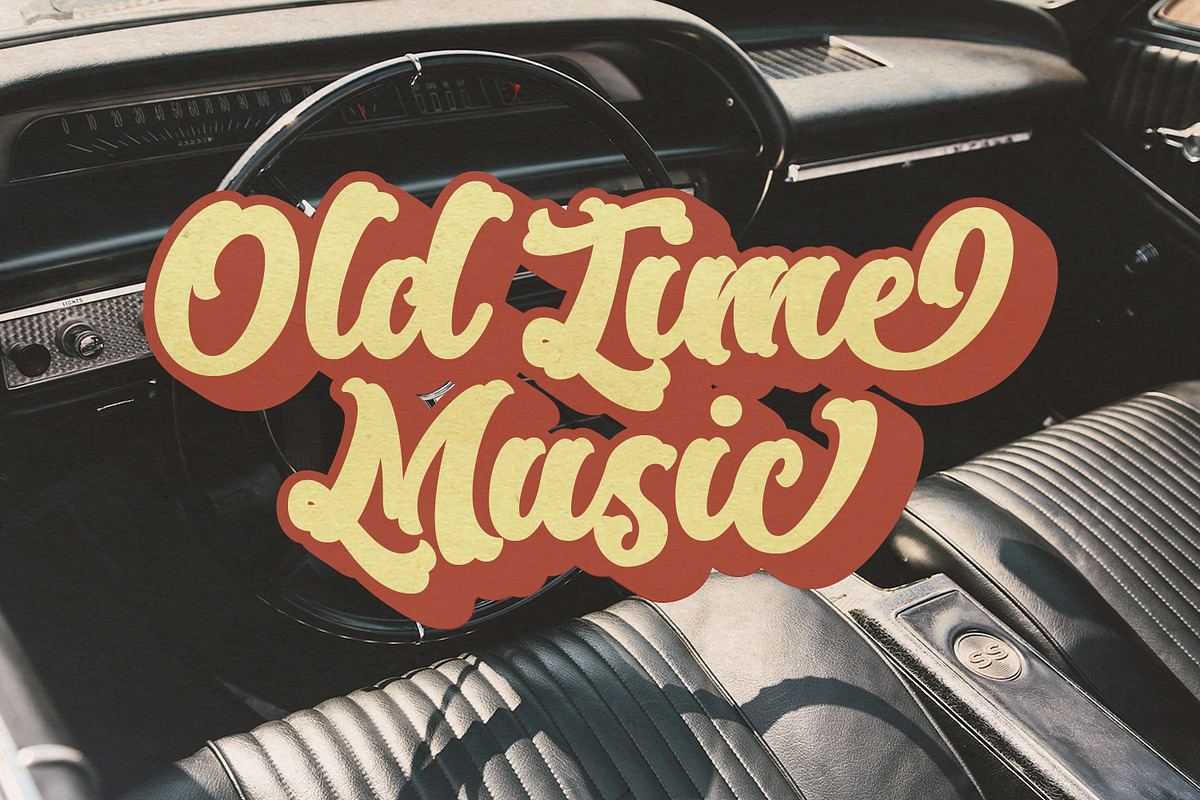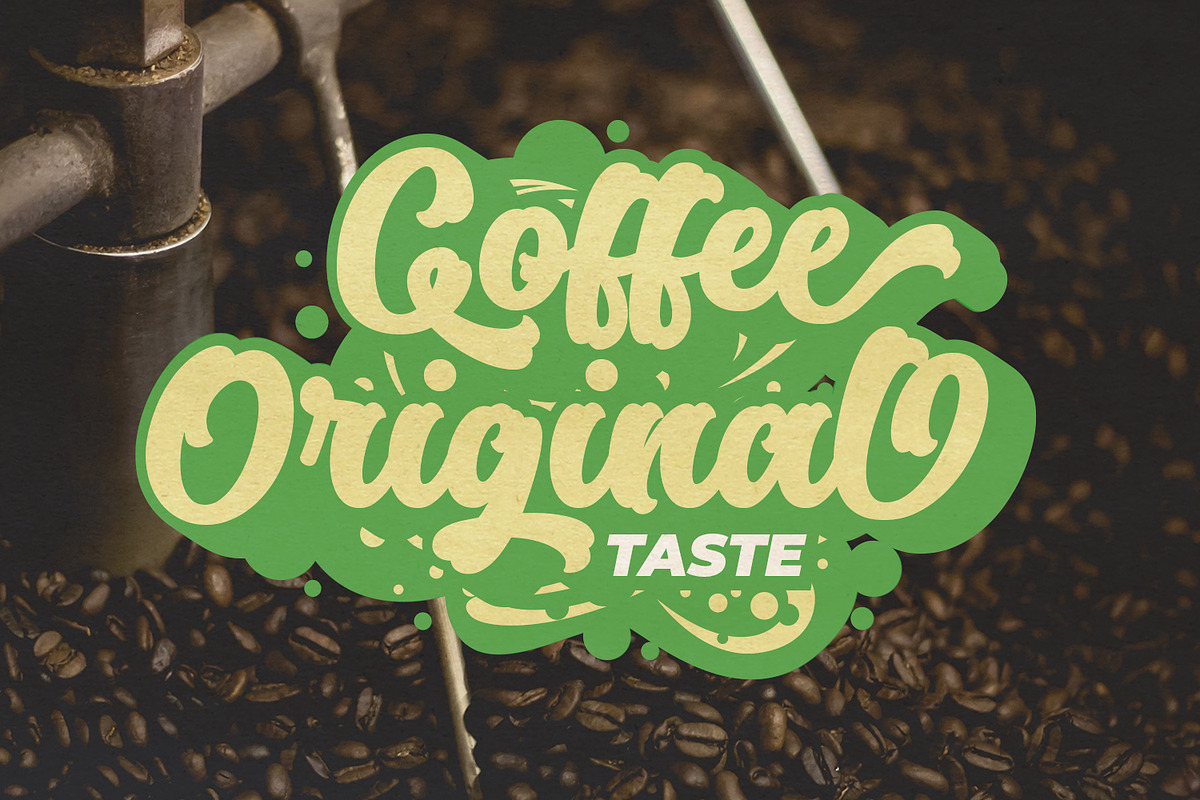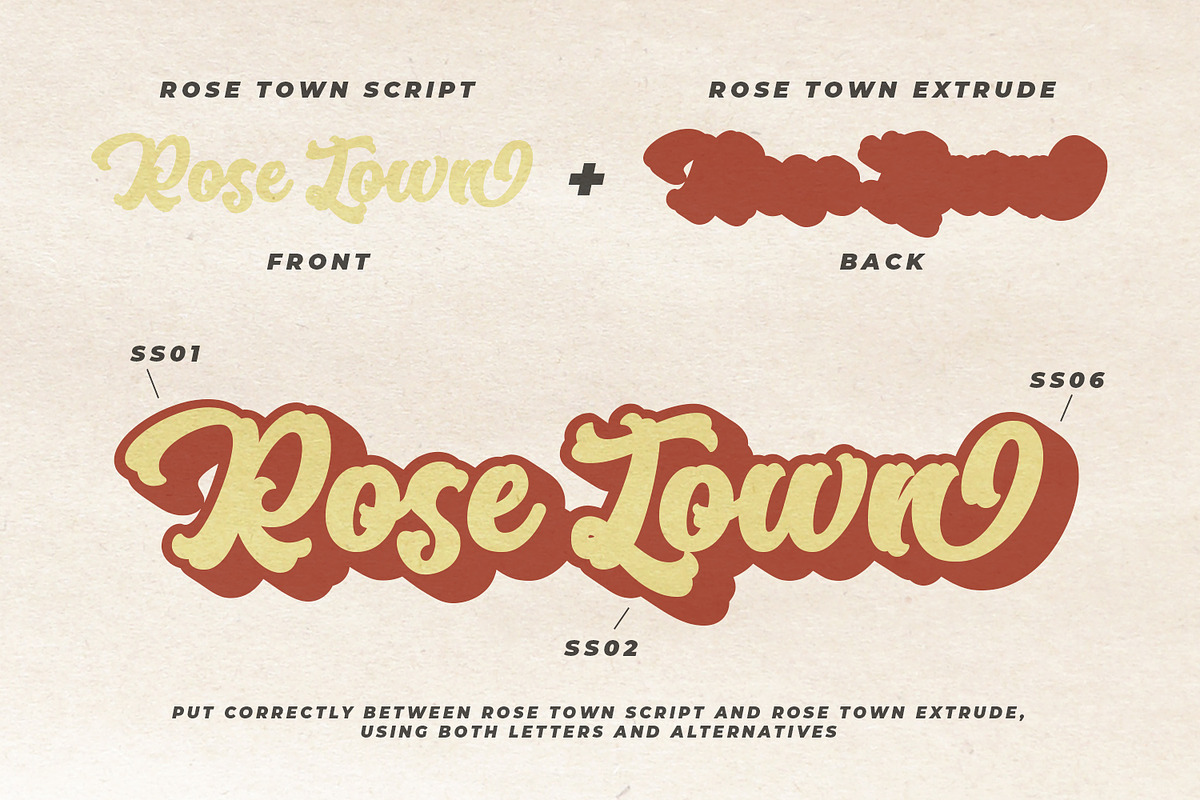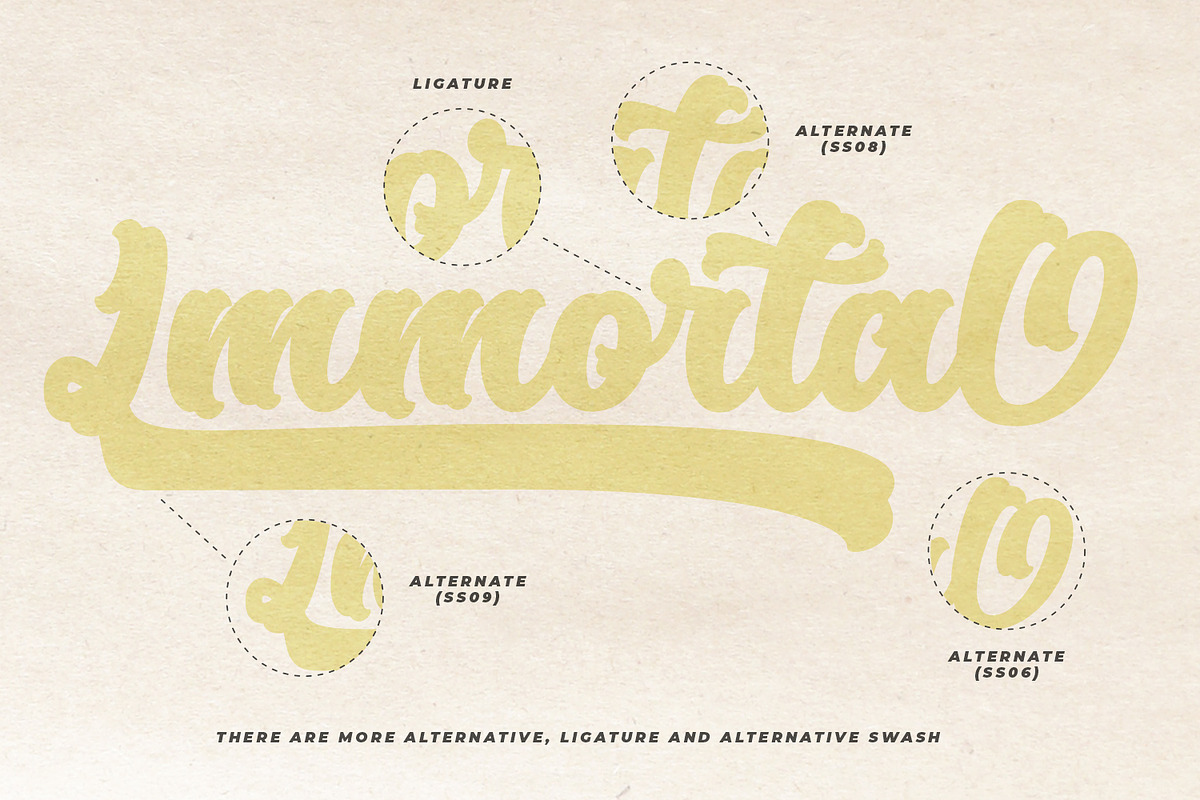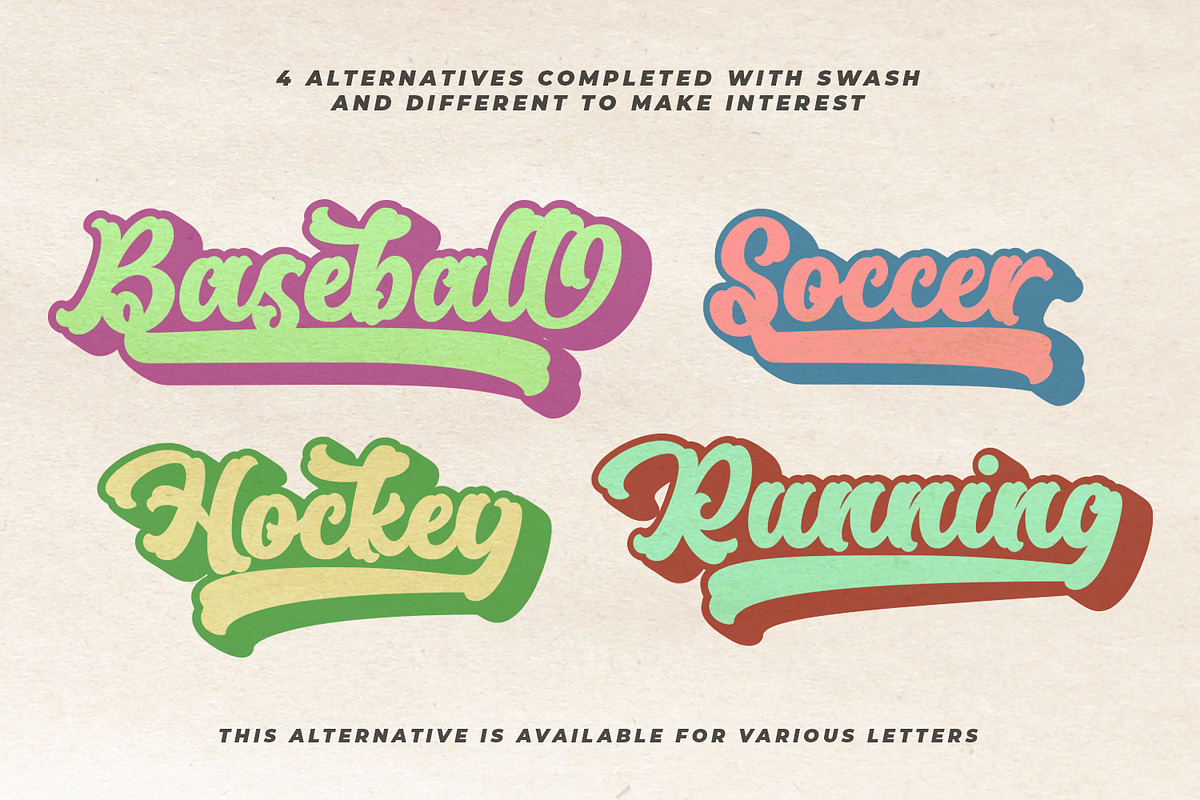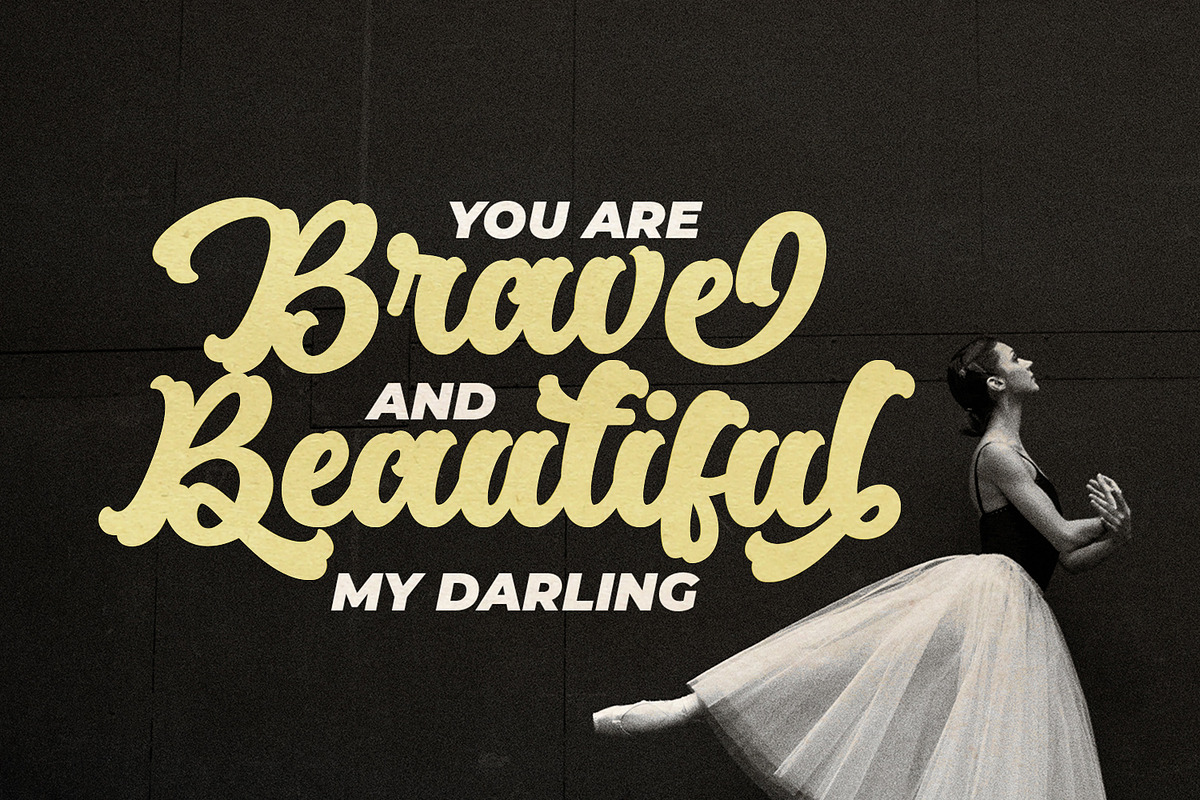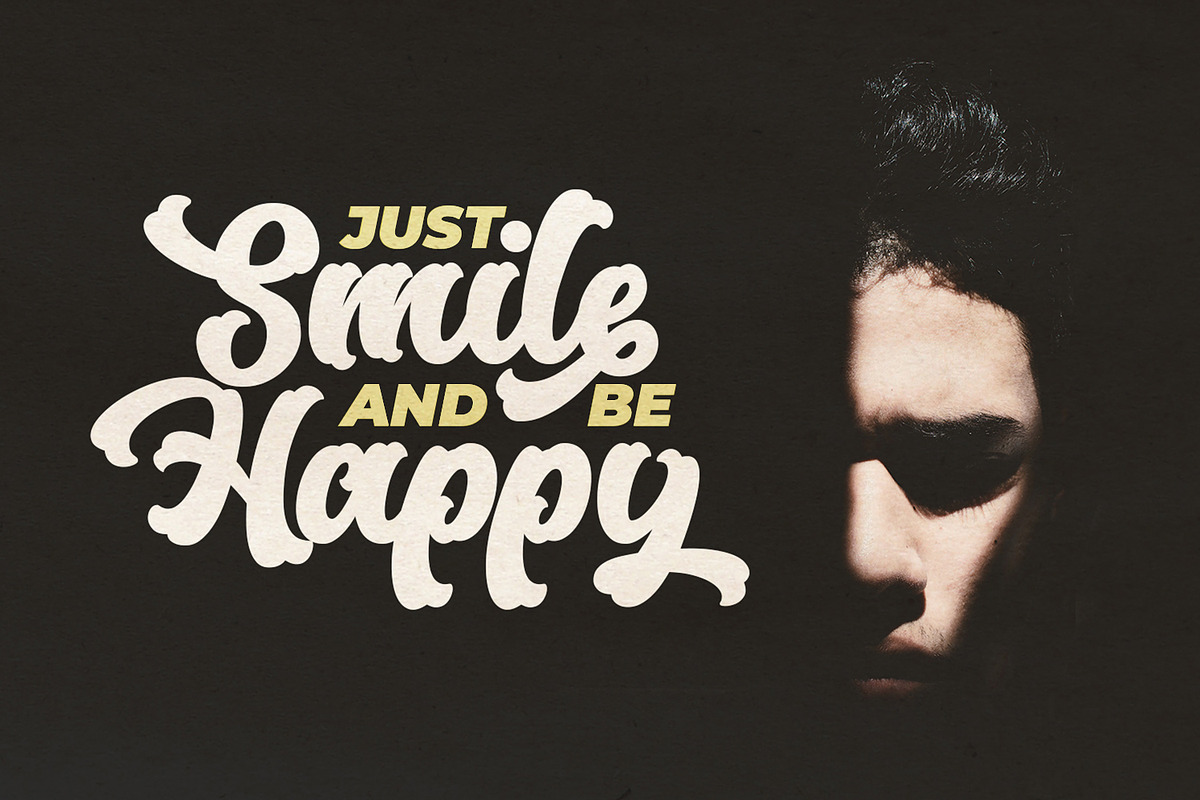
Rose Town - Retro Font
Rose Town, is a thick typeface with unique angles and is easy to read so that it is comfortable to wear. This font is made with old nuances that are suitable for vintage / retro themed events. You can also use it as logos, badges, packaging, titles, posters, t-shirts / clothing, greeting cards, business cards, and wedding invitations and more. Flowing characters are ideal for making interesting messages to your taste.
mix and match with many alternative characters to fit your project. It would be more interesting if you add Extruded Fonts and alternatives.
Alternative characters in this font are divided into several OpenType features such as Stylistic Alternate, Ligature and Ligature Alternate.
- Flowing characters are ideal for making interesting messages to your taste.
- mix and match with many alternative characters to fit your project.
- Alternative characters in this font are divided into several OpenType features such as Stylistic Alternate, Ligature and Ligature Alternate.